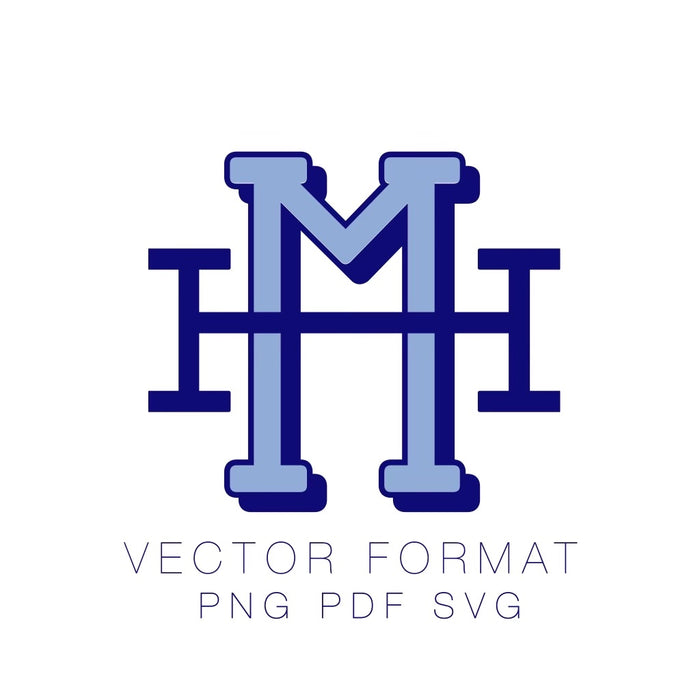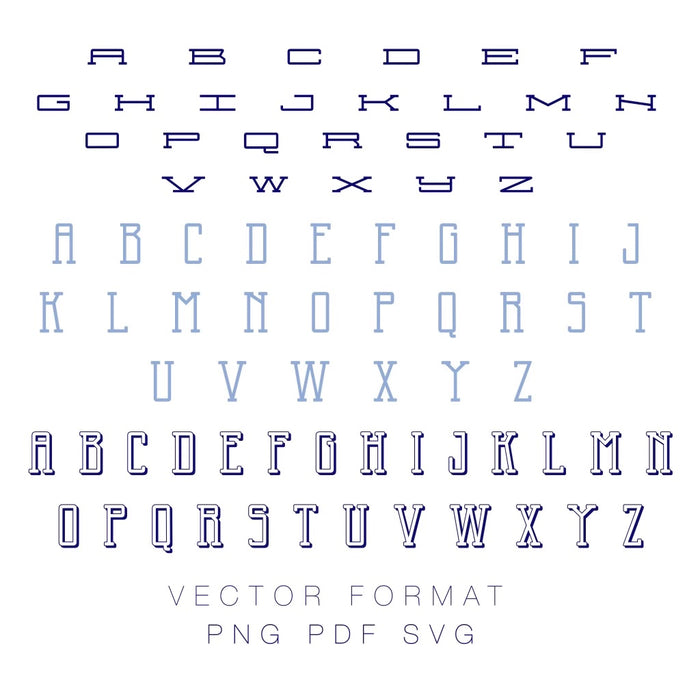
Jackson Shadow Monogram PDF PNG EPS & SVG Monogram Font
The Layne Font includes 78 individual files A-Z in both the inline, solid and shadow and fill layered font to create the two color block shadow effect.